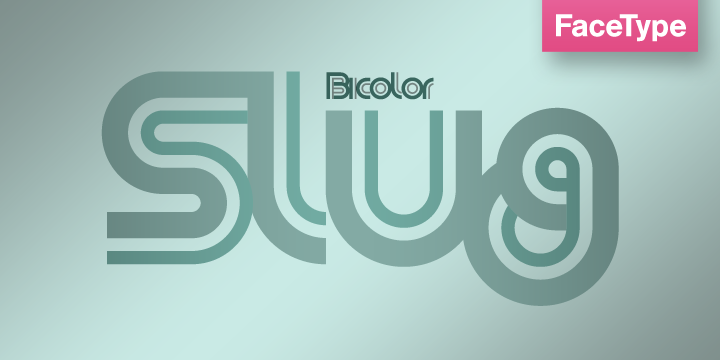
The Slug Font is exceptionally suited for numerous bold and impactful applications including newspaper headlines, magazine covers, bold poster designs, attention-grabbing advertisements, industrial branding, construction company materials, automotive marketing, sports team communications, urban streetwear graphics, and high-impact editorial layouts. Its commanding character makes it particularly effective for media companies, industrial businesses, automotive brands, and bold lifestyle companies seeking to convey strength, reliability, and visual impact in their communications and brand presentations.
What makes the Slug Font extraordinarily exciting is its perfect combination of industrial strength and typographic sophistication combined with contemporary design innovation. This powerful typeface captures the essence of mechanical precision and industrial craftsmanship while incorporating modern design elements that ensure optimal performance across today's diverse media landscape. The font's captivating character emerges from its robust letterforms, sturdy proportions, and carefully engineered details that create a sense of mechanical reliability and industrial authority, making it perfect for brands seeking to establish strength and appeal to durability-conscious, performance-oriented audiences.
The Slug Font family offers a comprehensive collection of weights and styles designed to accommodate various industrial and bold branding requirements. The collection typically includes light, regular, medium, bold, and black weights, with many versions offering strong italic variants that enhance the font's dynamic appeal and mechanical character. Some editions may include condensed versions, industrial alternates, and heavy-duty elements that provide additional design options for creating unique typographic treatments and strength-focused brand applications.
Industrial designers and bold marketing professionals consistently select the Slug Font Free Download for its exceptional strength and visual impact. The font features optimized spacing and kerning that ensures clear readability across various high-impact applications, from small product labels to large-scale industrial signage. Its robust construction maintains its distinctive character in both digital and print environments, while the comprehensive character set includes uppercase and lowercase letters, numerals, punctuation marks, and special symbols, along with extensive language support for international industrial projects and global mechanical communications.
The Slug Font represents the perfect fusion of industrial heritage and contemporary design standards, combining mechanical aesthetics with modern functionality. Its powerful appearance appeals to strength-conscious audiences while maintaining the professionalism required for serious industrial business applications. The font's remarkable durability allows it to work effectively in both traditional mechanical contexts and modern industrial branding, ensuring consistent impact across industrial websites, mechanical publications, automotive marketing, and heavy-duty communications.
Build strength and mechanical authority with the industrial power and robust reliability of the Slug Font, the ultimate choice for industrial typography excellence.